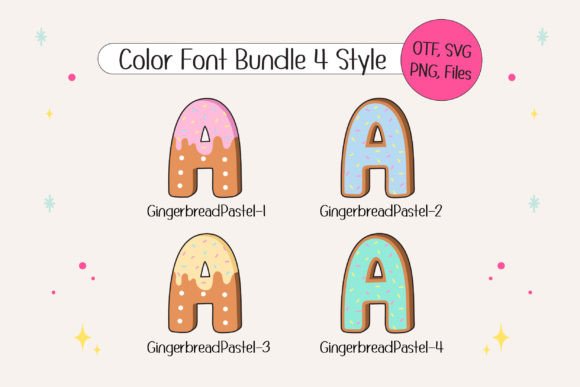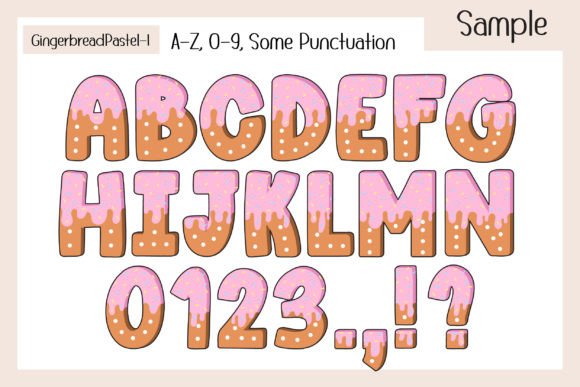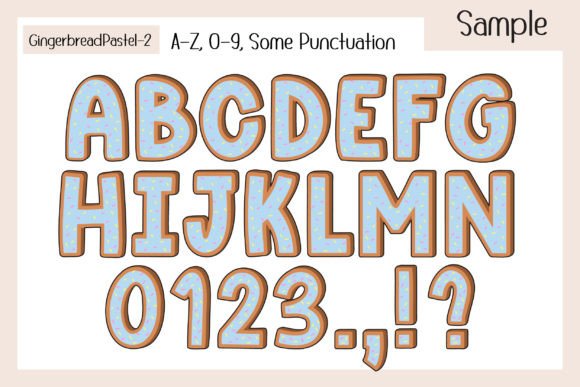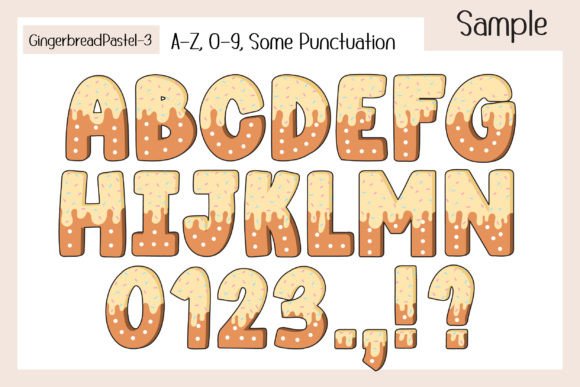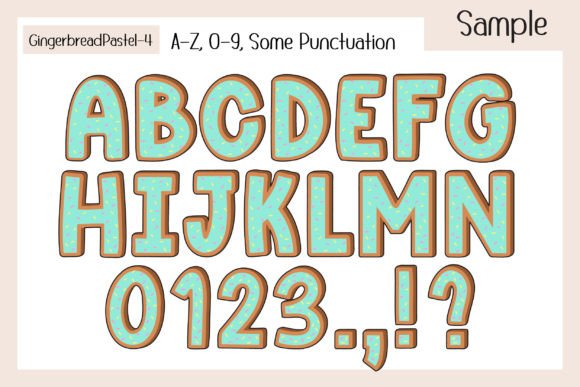
Introducing Gingerbread Pastel Cream Font: A Sweet and Playful Christmas Delight
Are you looking for a font that captures the essence of Christmas with a touch of whimsy and playfulness? Look no further than the Gingerbread Pastel Cream Font! This charming font is inspired by the classic gingerbread cookies topped with soft pastel cream, bringing a warm and festive vibe to all your holiday creations.
A Sweet and Playful Christmas Font
Gingerbread Pastel Cream is a unique and delightful font that combines the warmth of gingerbread with the softness of pastel cream. The font features four Christmas-themed ‘PASTEL’ color styles, each one carefully crafted to evoke the magic of the holiday season. Whether you’re designing Christmas posters, T-shirts, or custom DIY craft projects, this font is sure to add a gentle and festive touch to your creations.
20 Bonus Matching Clip Arts
To make your holiday designing even more exciting, the Gingerbread Pastel Cream Font comes with 20 bonus matching clip arts! These clip arts are perfect for adding an extra touch of festivity to your designs, and can be used to create a wide range of holiday-themed projects, from Christmas cards to personalized gift tags.
Tips for Using Gingerbread Pastel Cream Font
- Four Christmas-themed ‘PASTEL’ color styles